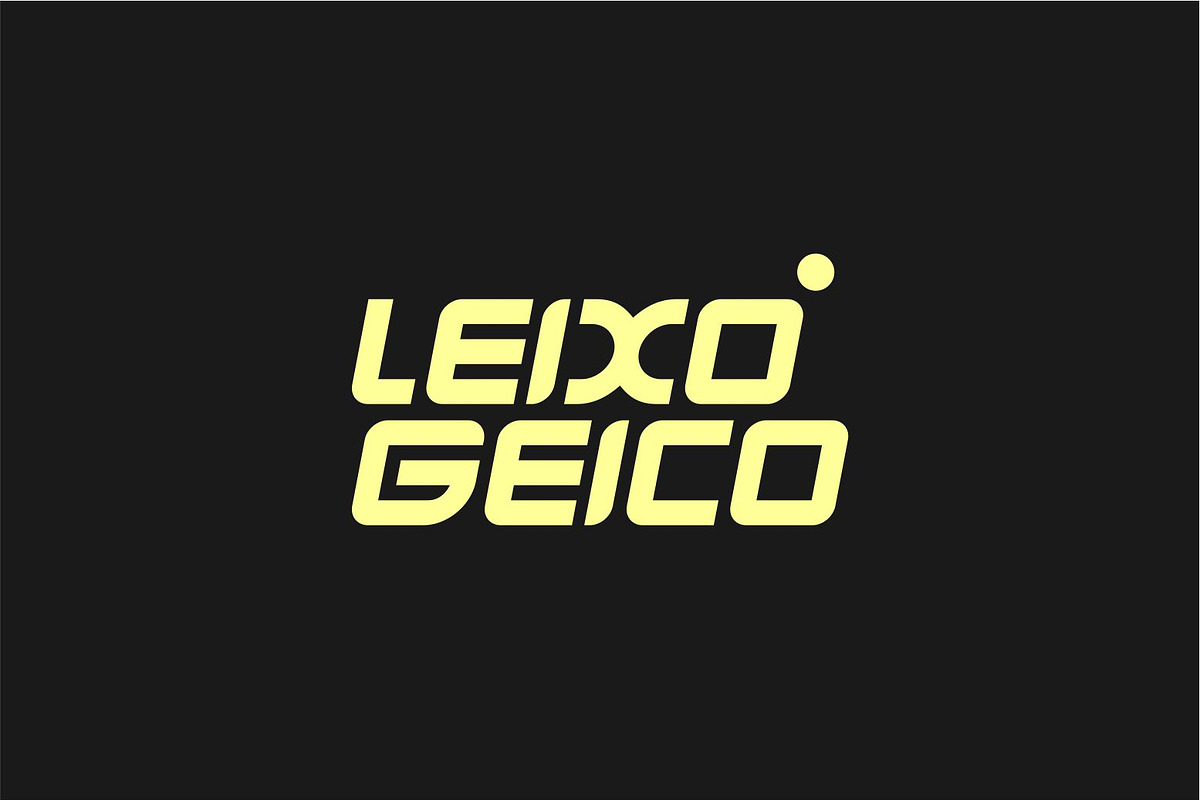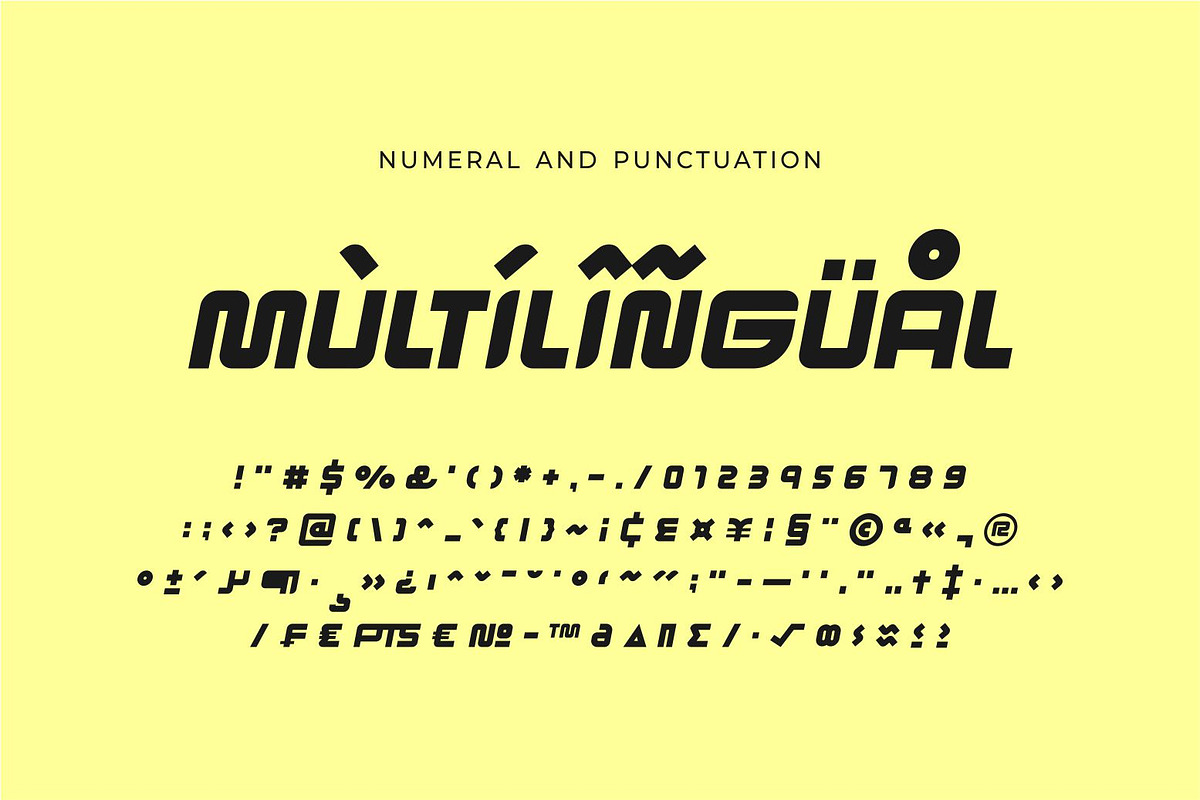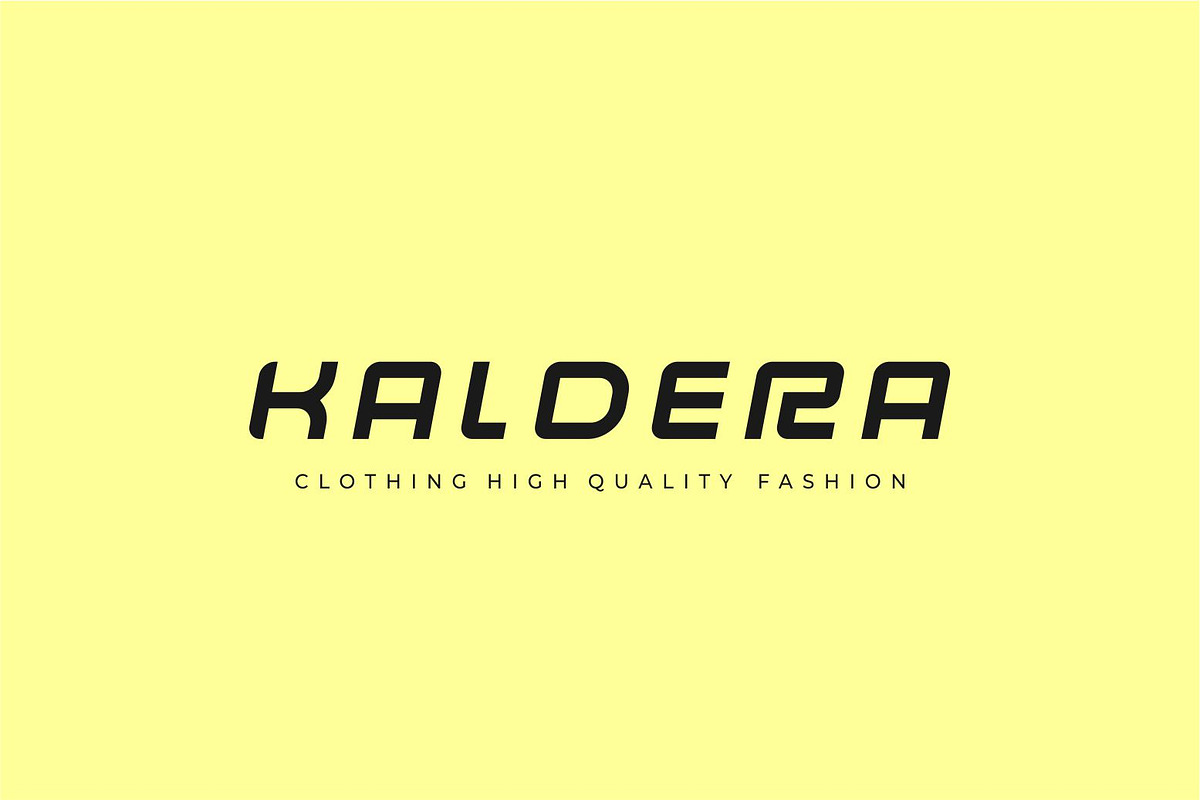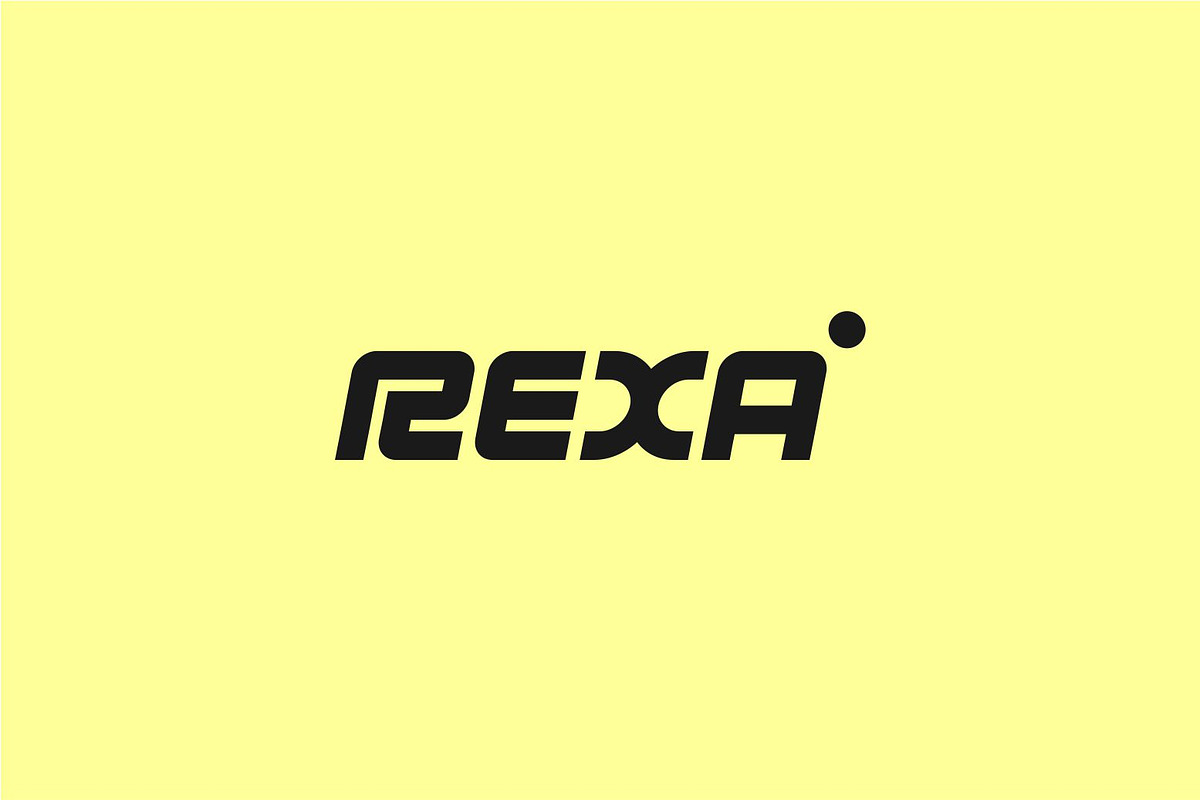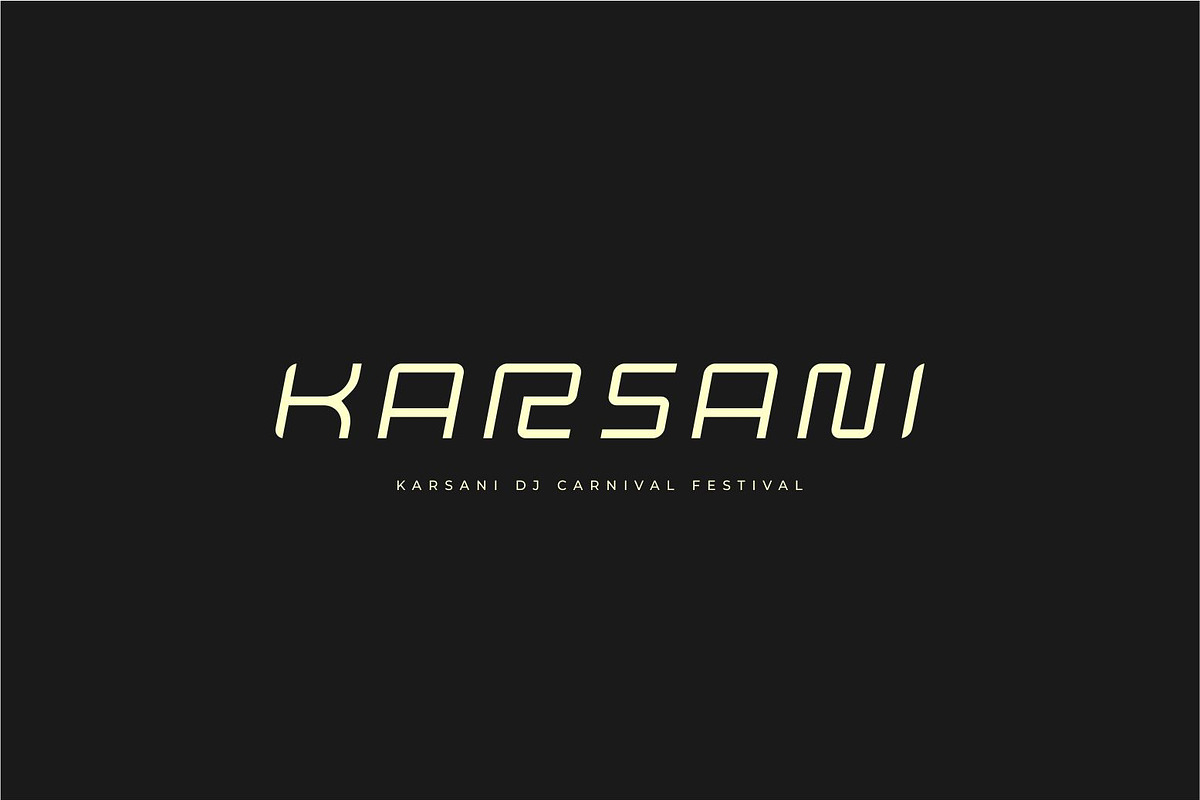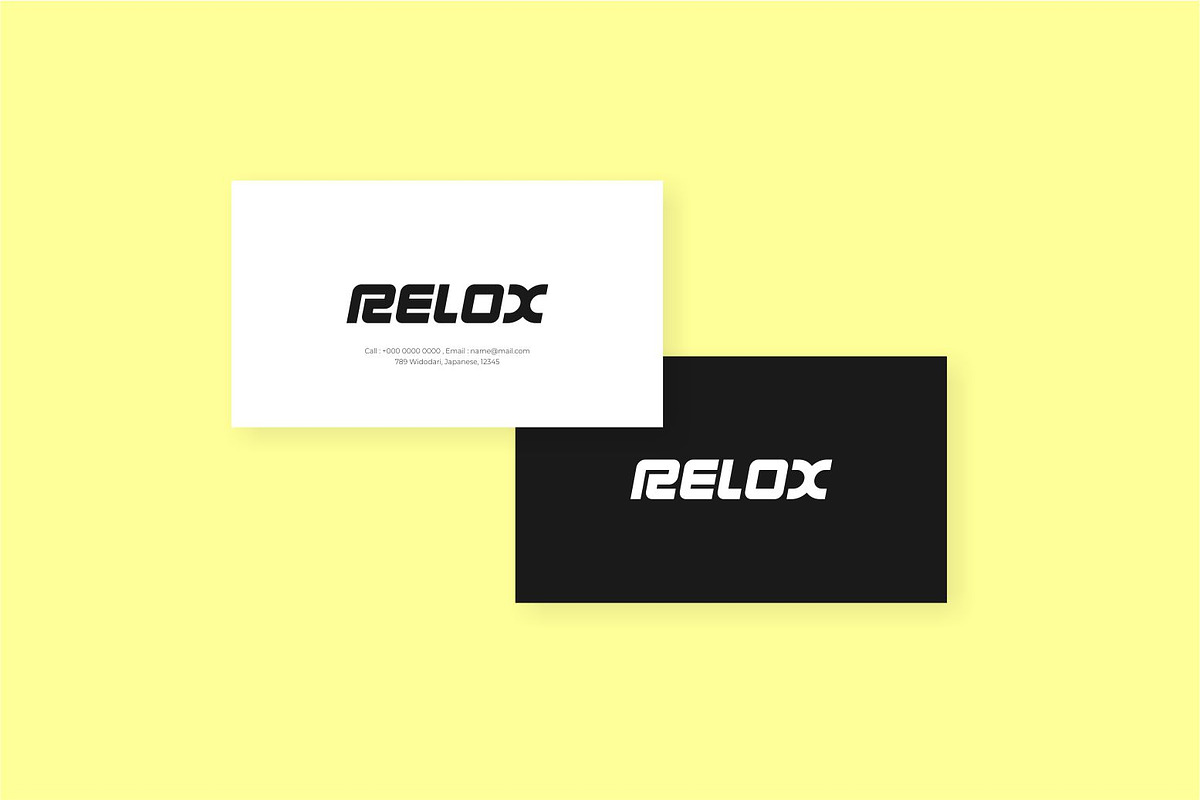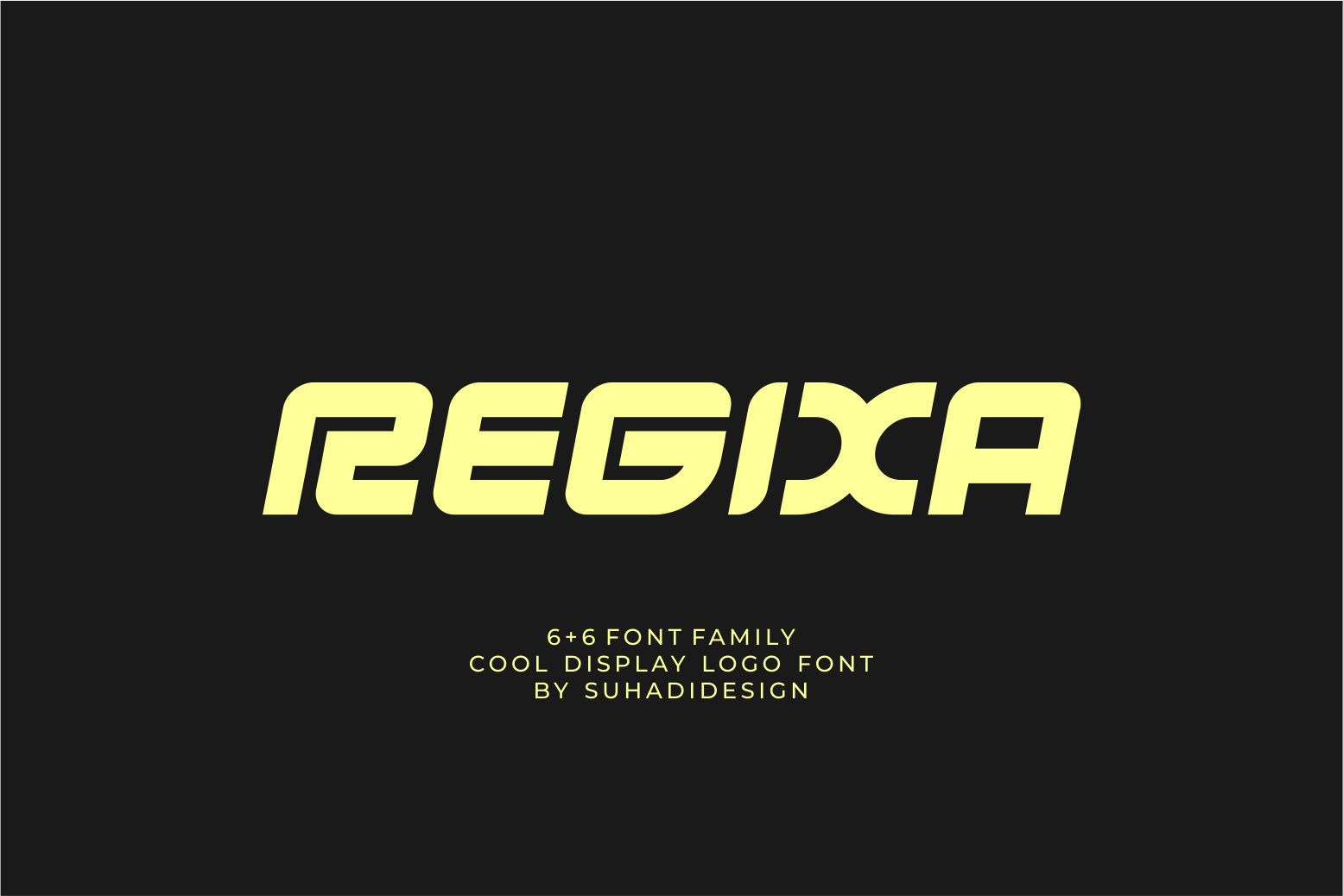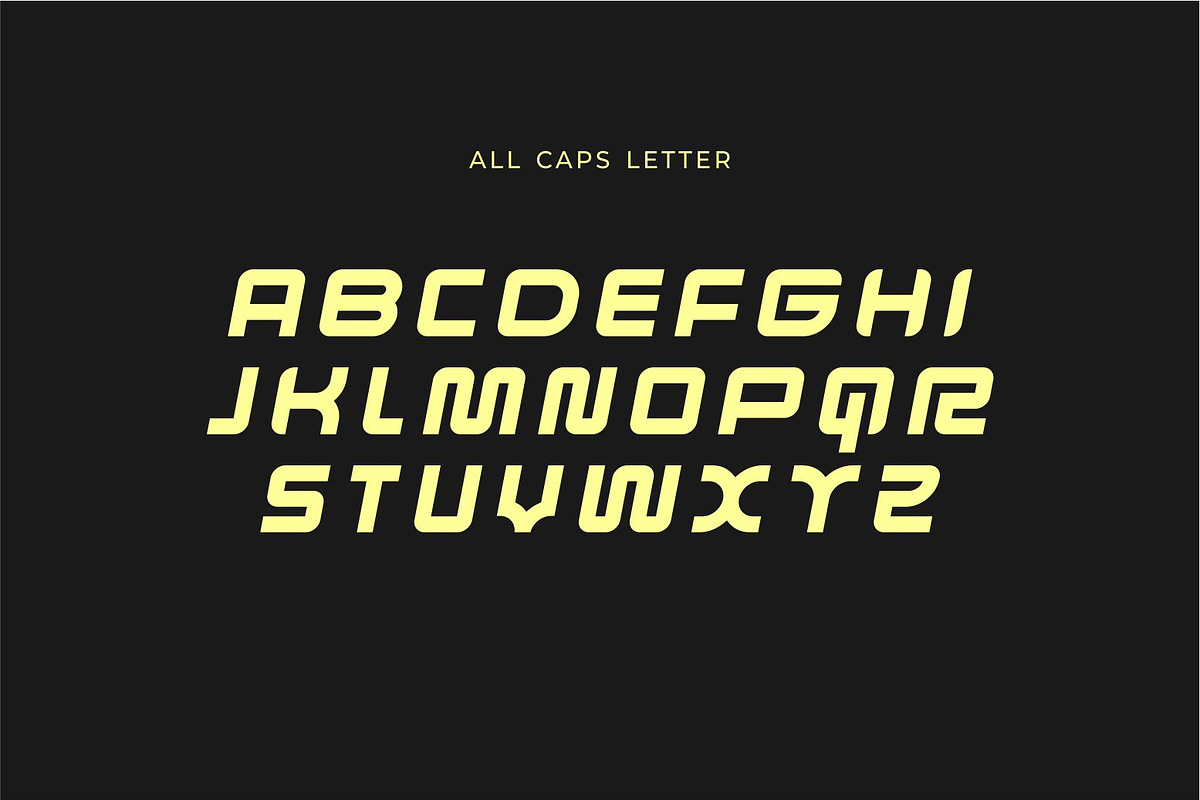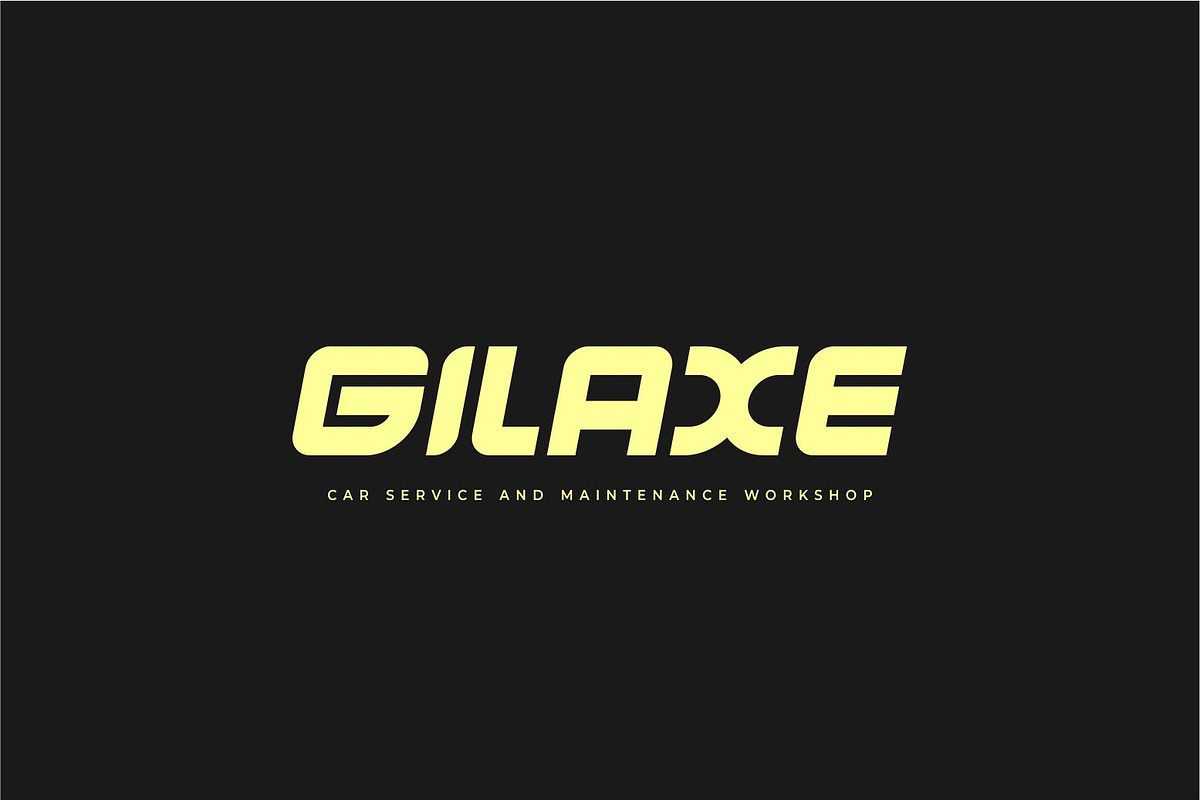
Regixa - Display Logo Font
Hello, ladies and gentlemen! In response to market demand, I created a minimalist sans serif font that is modern, elegant, and cool. Therefore, I decided to create this sans serif font. Regixa is a minimalist sans serif font, presented with a modern style to become a market favorite. We've kept this font elegant, classy, modern, stylish, up-to-date, and easy to use. Regixa is a great choice for logos, labels, fashion, posters, banners, bags, brands, fashion, brand names, branding, quotes, and other projects. Regixa is here to take your designs to the next level.
• All capital letters • 6 + 6 families • Multilingual support • Numbers and punctuation